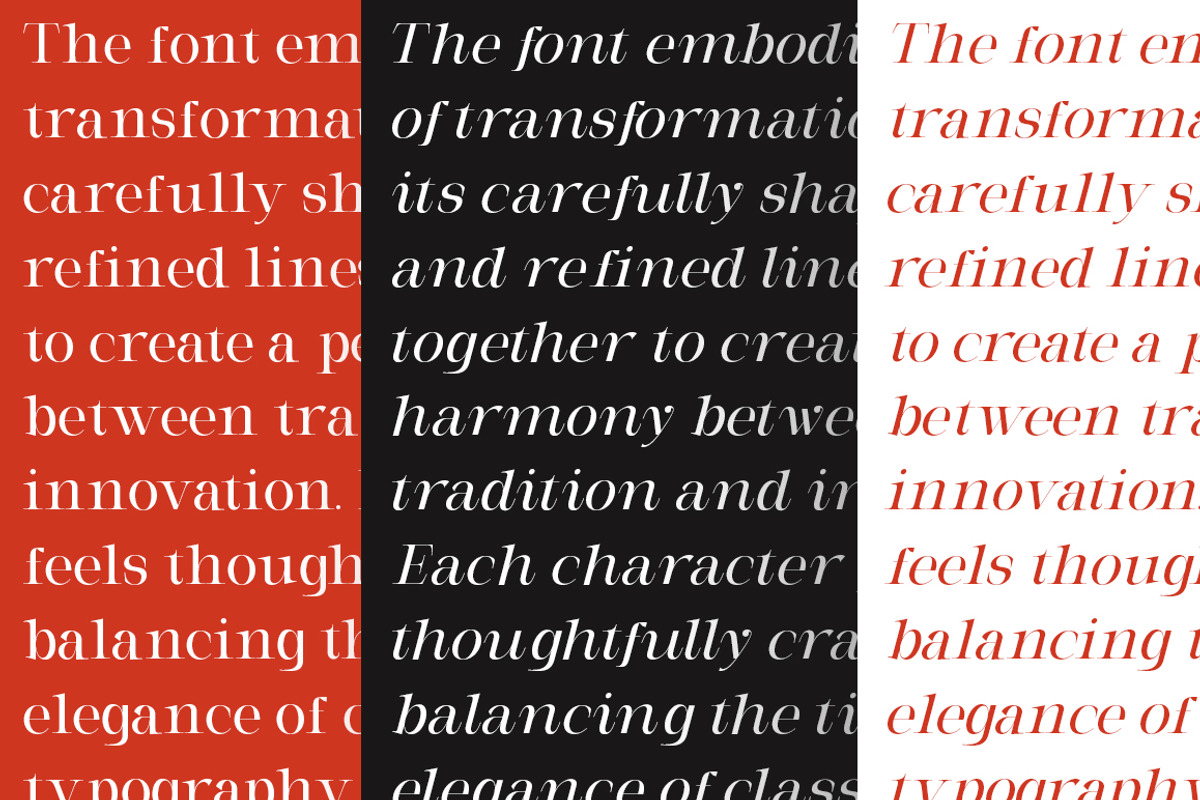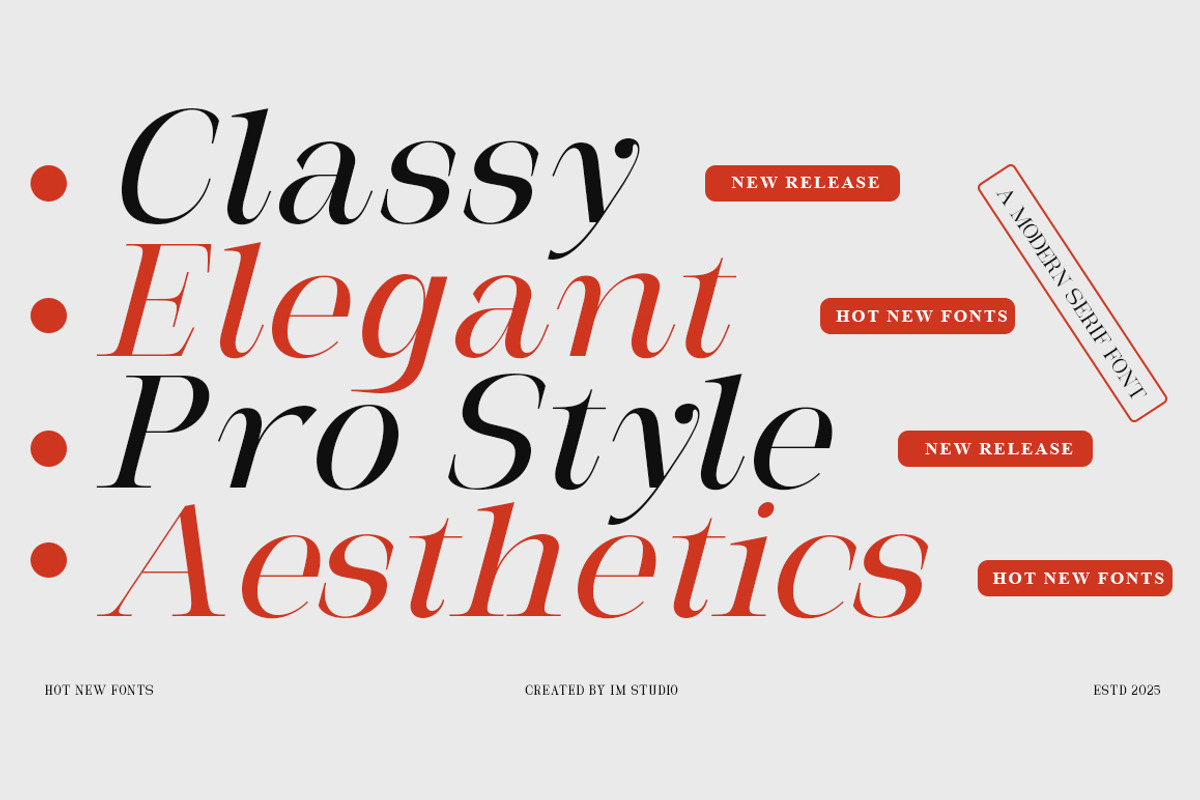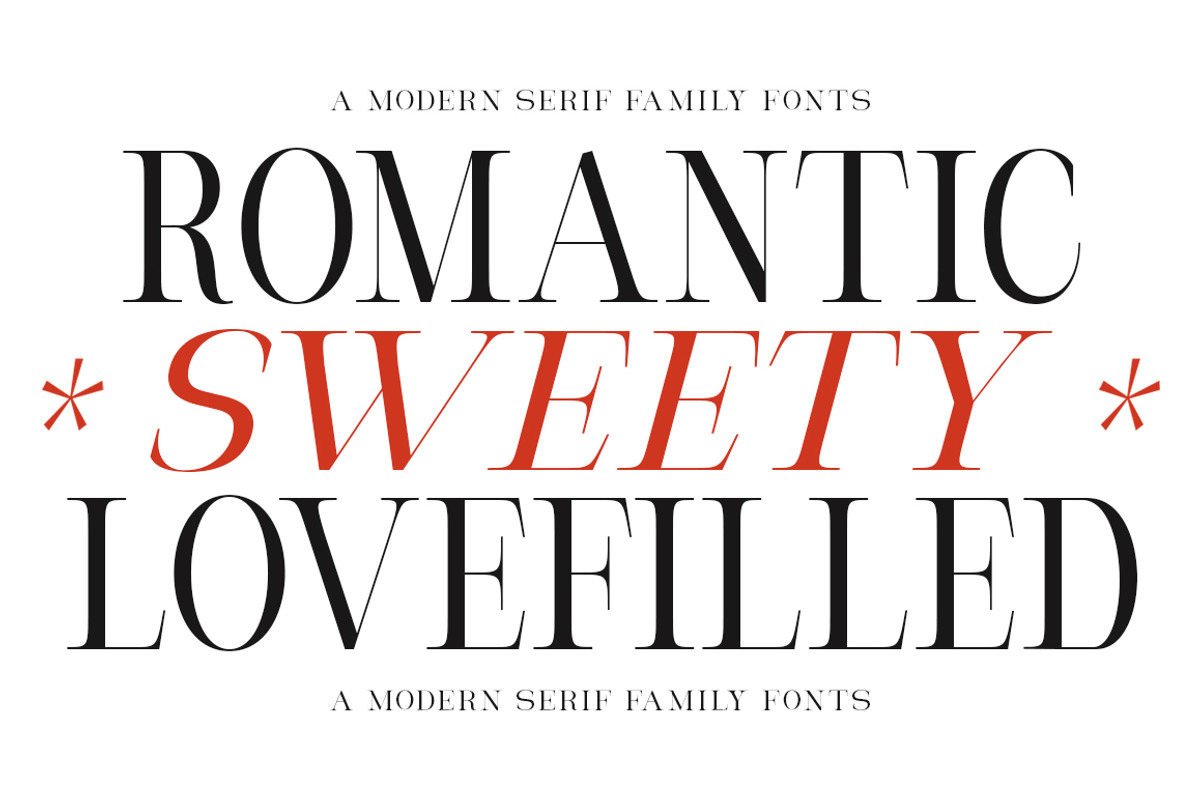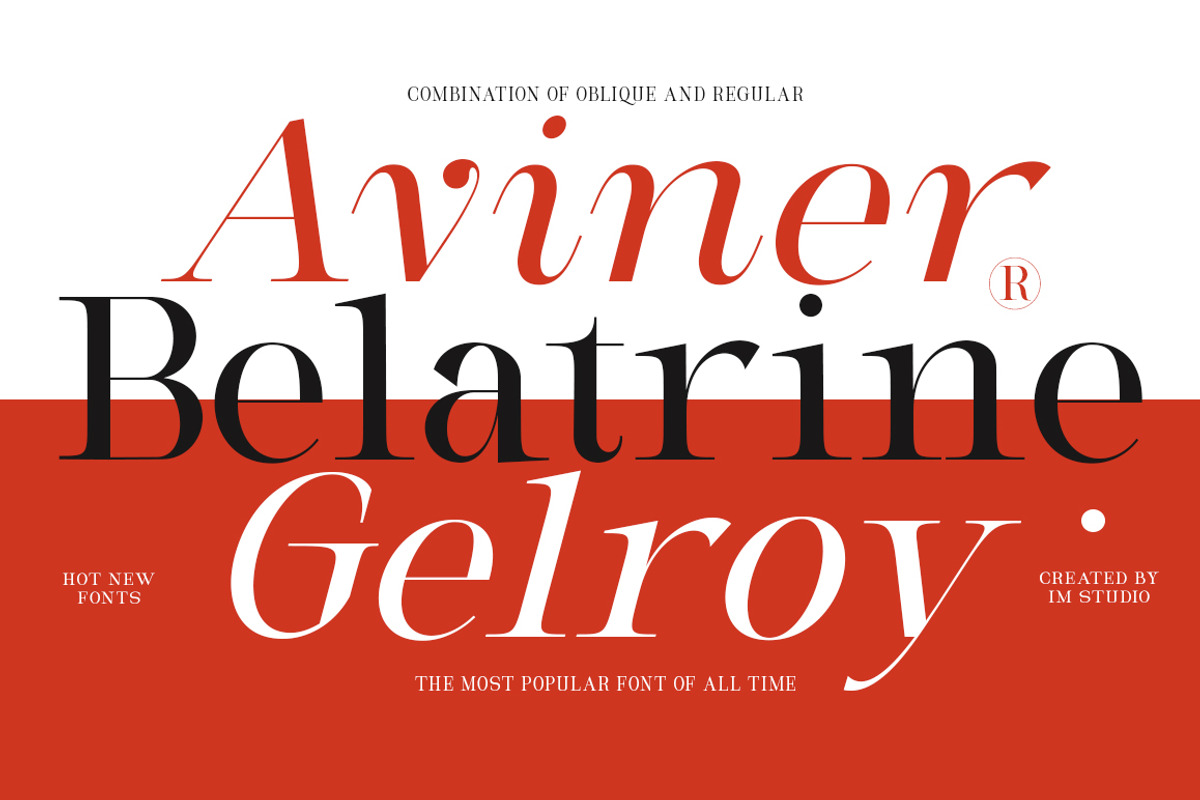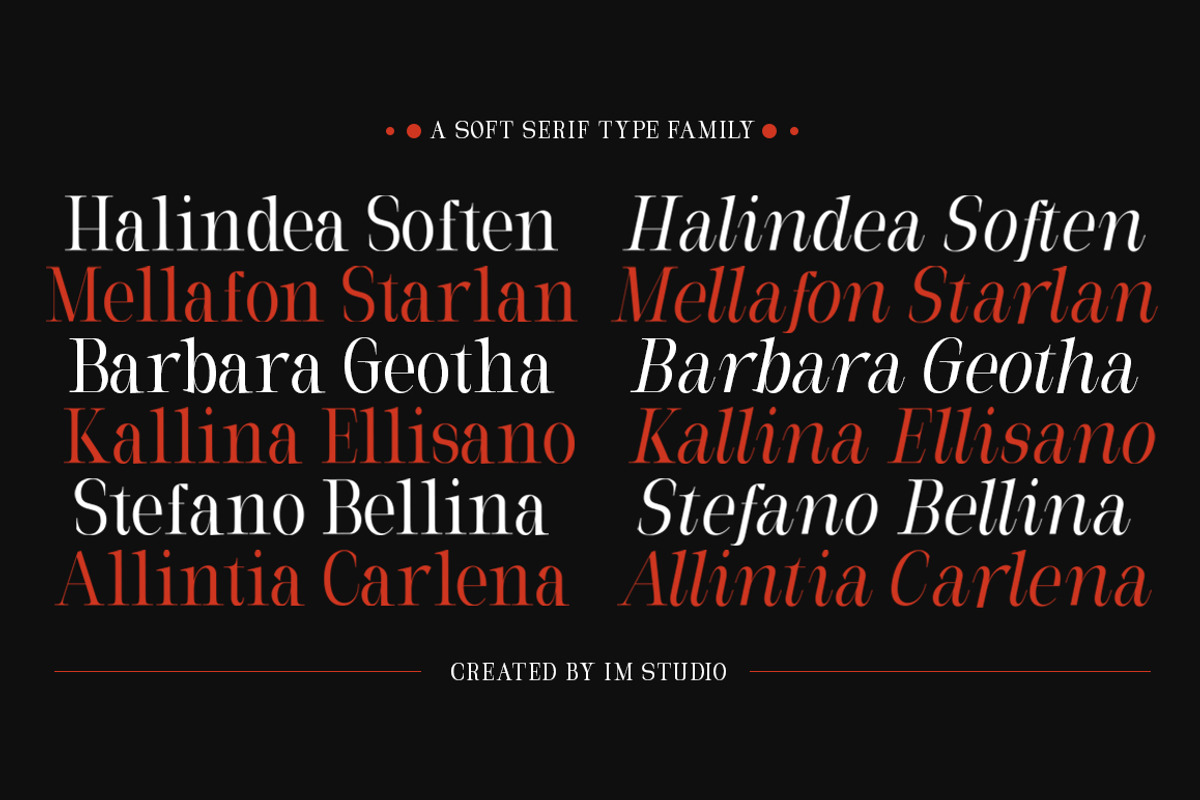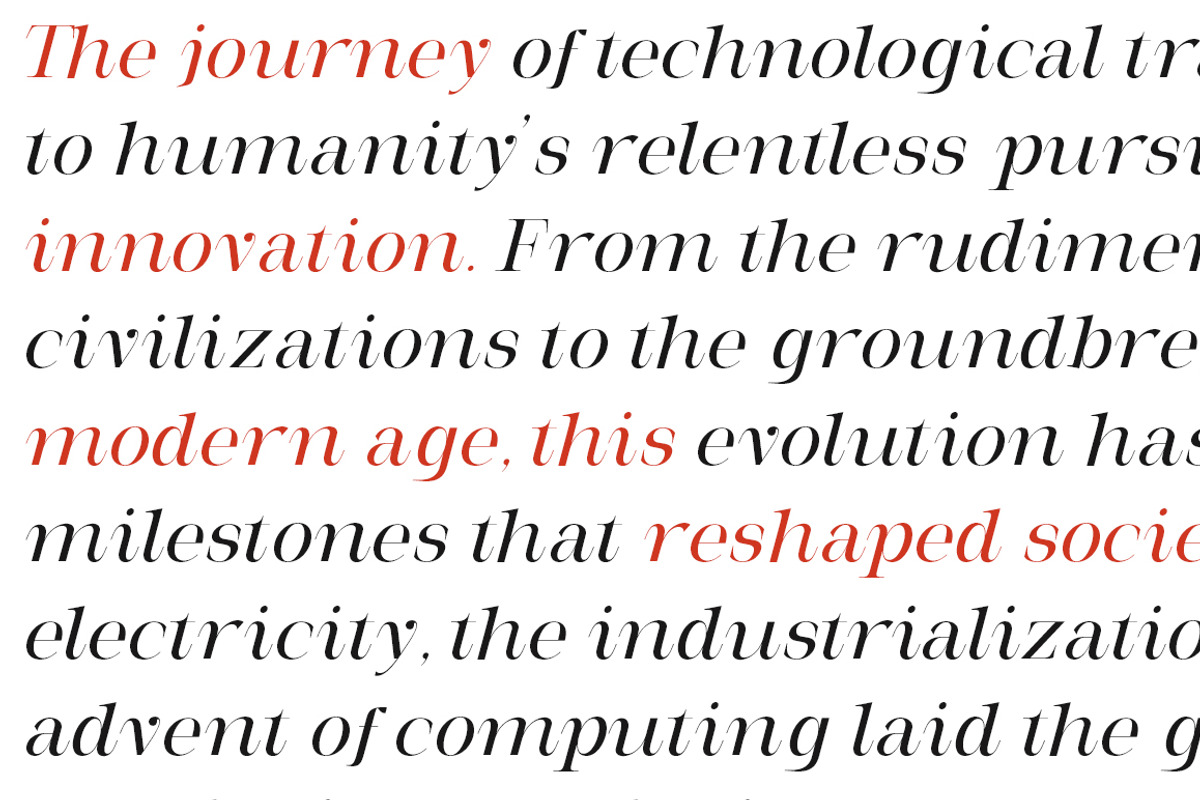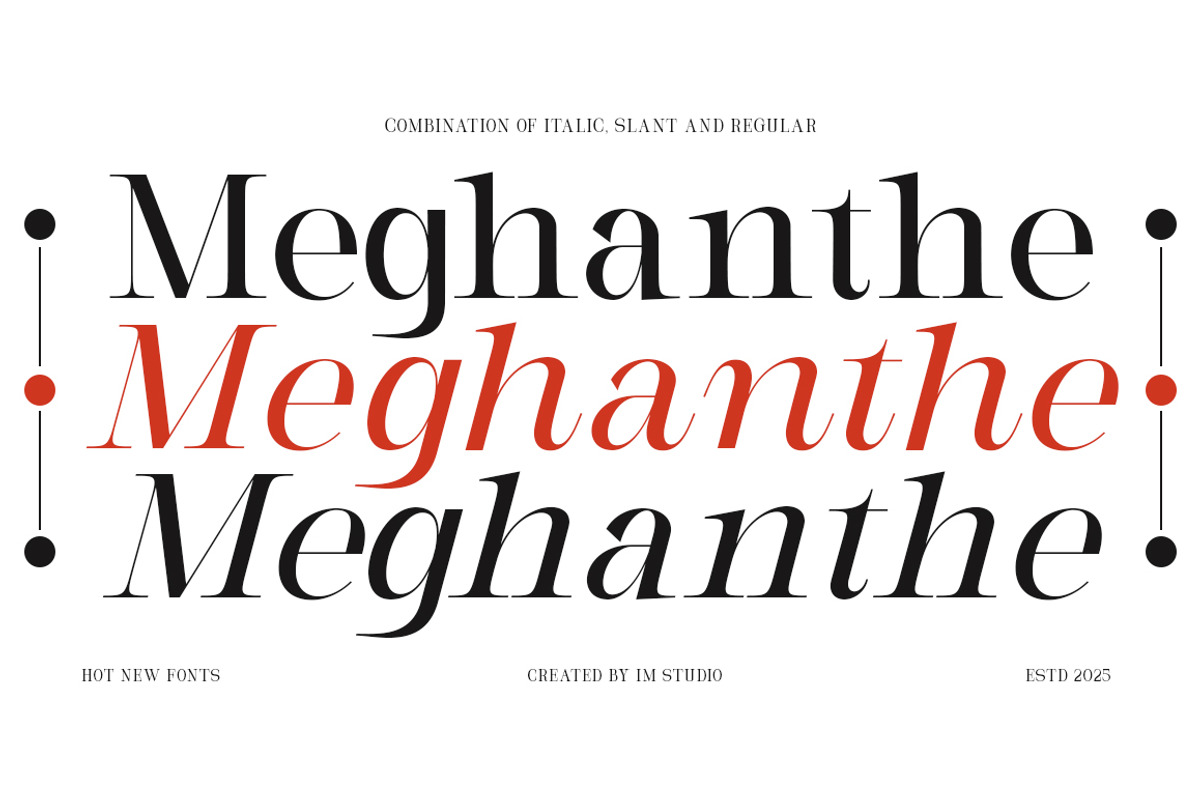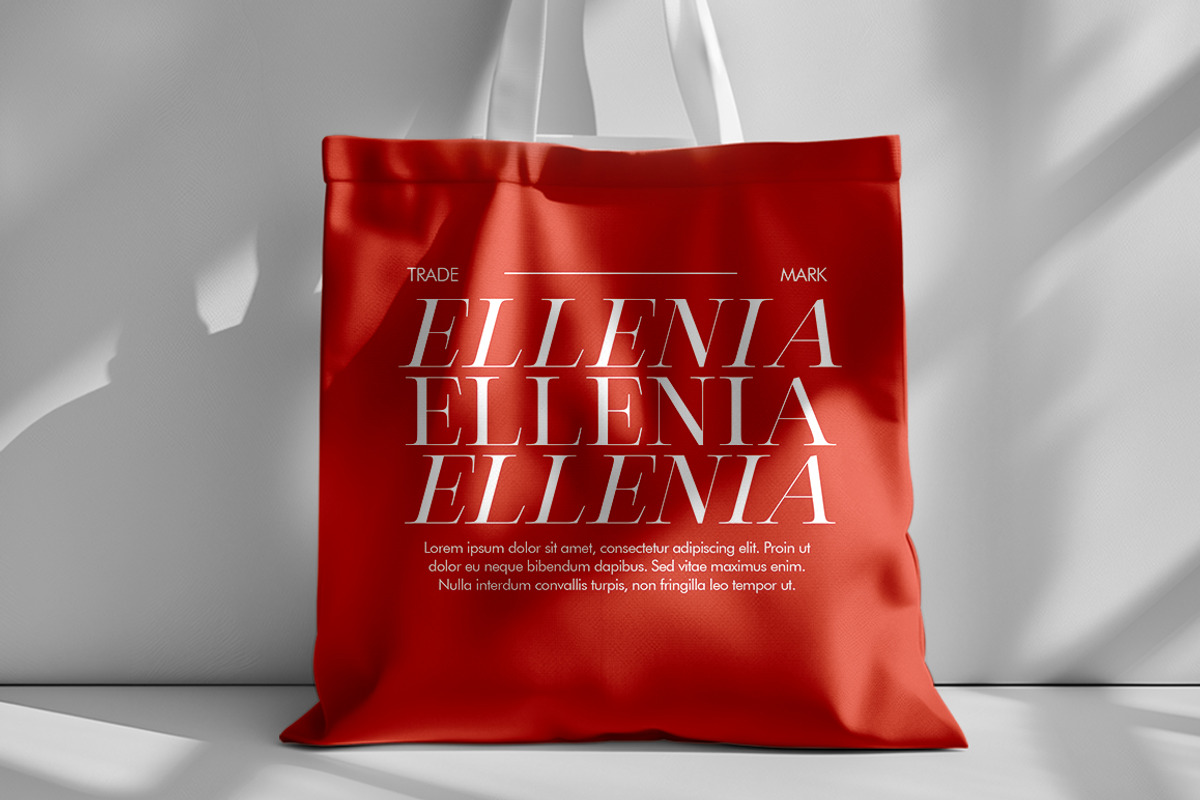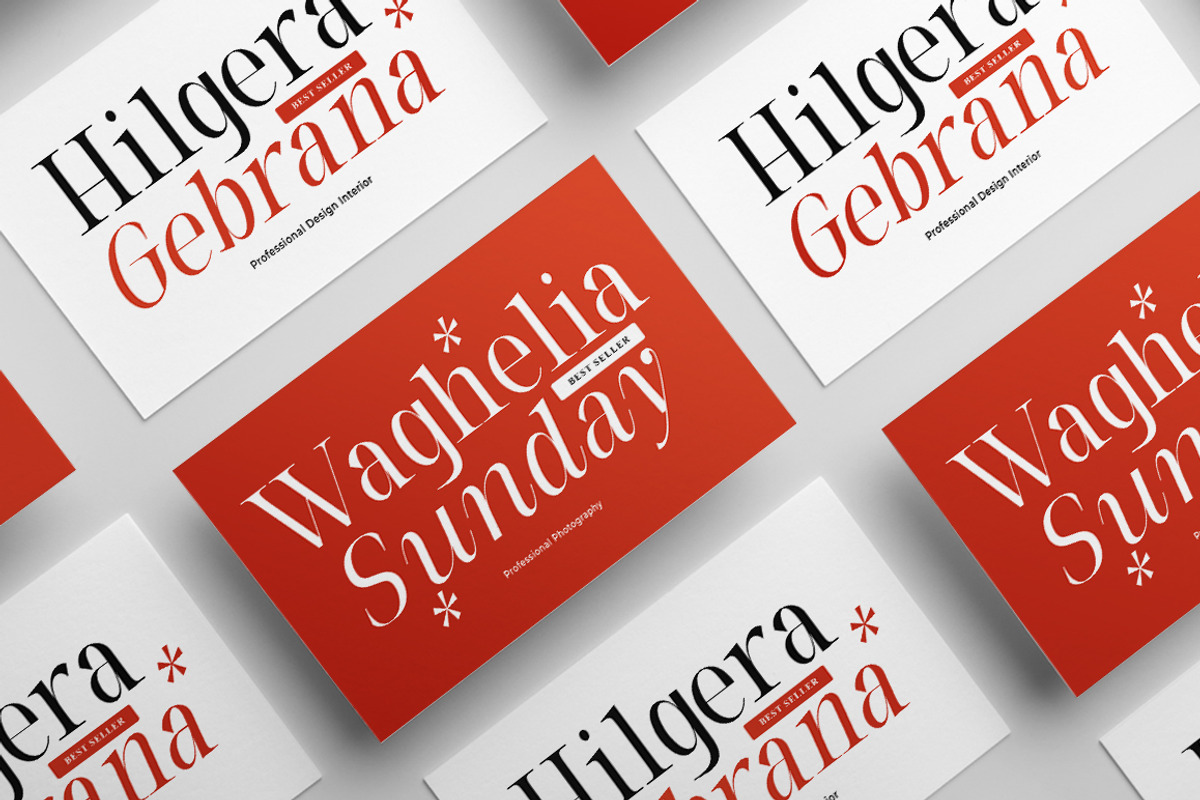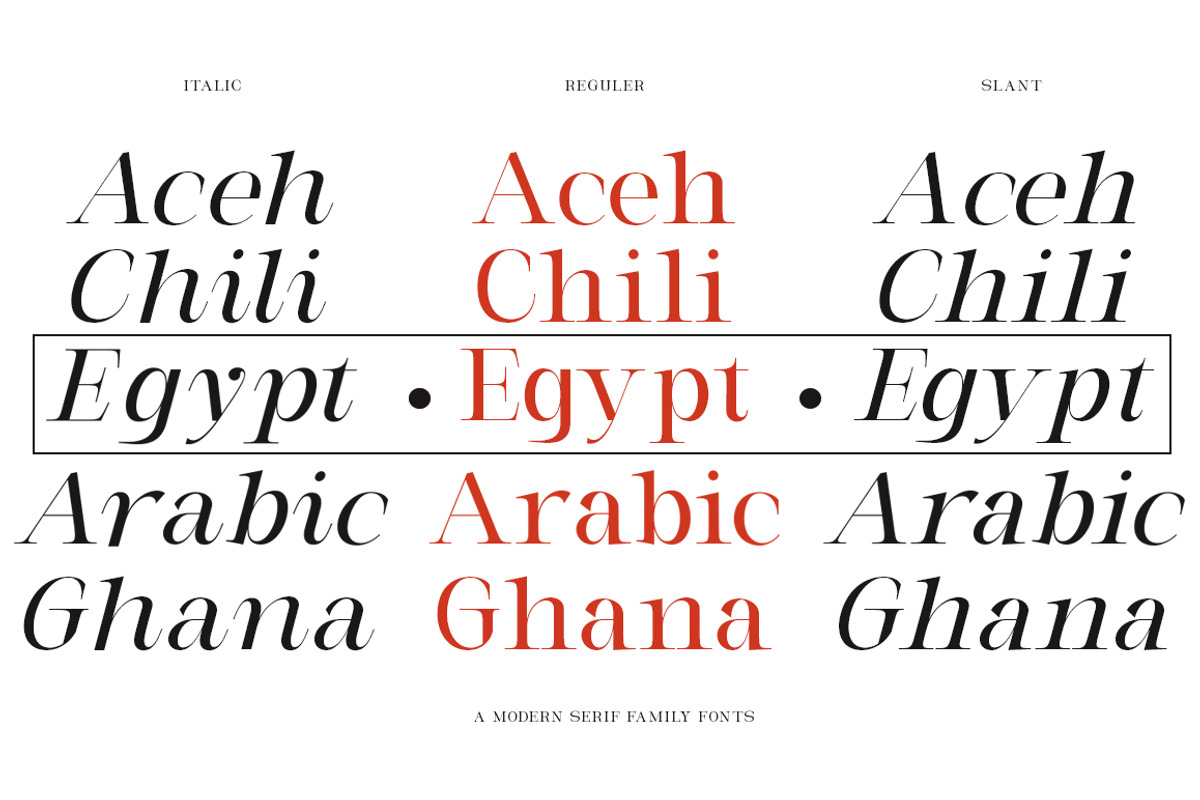
Milghera Serif
Milghera Serif is a sophisticated and charming typeface that combines classic elegance with a contemporary twist. Its gentle curves and graceful letterforms create a smooth and visually appealing flow. Enhanced with carefully crafted ligatures and alternate characters, Milghera Serif offers a unique blend of artistry and versatility. These features combine a sense of luxury and creativity, making it a great choice for branding, wedding invitations, and editorial design. With its timeless charm and harmonious blend of modern and vintage elements, Milghera Serif is the perfect typeface for those seeking character, style, and distinction.